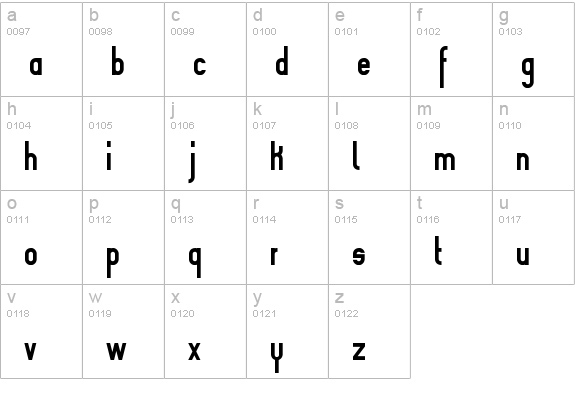
Slimania Bold Font Details
Slimania Bold is a strong, high-contrast variant in the Slimania typeface family \xE2\x80\x94 well suited to headlines, attention-grabbing titles, and strong calls-to-action.
Slimania Bold is a captivating and versatile font that effortlessly combines elegance with a touch of modernity. Its sleek and streamlined design makes it perfect for a wide range of design projects, from branding and advertising to editorial and packaging. With its bold and confident appearance, Slimania Bold commands attention and adds a sense of sophistication to any project. Its clean and crisp lines ensure readability, even at smaller sizes, making it ideal for both print and digital applications. This font's unique personality shines through in its carefully crafted letterforms, featuring sharp edges and precise curves that create a harmonious balance between strength and grace. Each character is meticulously designed to offer a visually striking and memorable impression. What sets Slimania Bold apart is its availability as a free download on FontsMarket.com. This means that designers, enthusiasts, and professionals alike can access and utilize this stunning font without any cost. Whether you're a seasoned designer looking to expand your font collection or a novice just beginning your creative journey, Slimania Bold is a valuable addition to your arsenal. Download Slimania Bold now from FontsMarket.com and unleash your creative potential with this extraordinary font. Use it to make a statement, create eye-catching headlines, or add a touch of elegance to your designs. With Slimania Bold, the possibilities are endless, and the results are bound to leave a lasting impression.